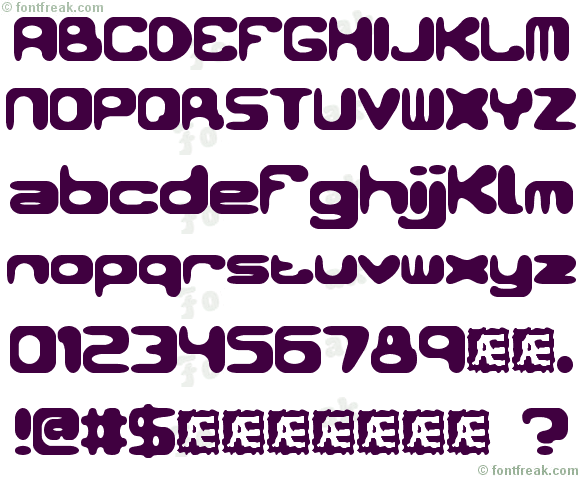
Conduit (BRK)
The Conduit font by Ænigma Fonts is a unique display typeface that blends modern aesthetics with playful charm. This freeware font features rounded letterforms, creating a friendly and approachable appearance. The stroke weight is consistent, offering a smooth visual flow, while the spacing between characters is generous, ensuring clarity even at smaller sizes. The design incorporates subtle decorative elements, such as the rounded terminals, adding a touch of whimsy that sets it apart from traditional fonts.
Conduit is highly versatile and can be effectively used in a variety of applications. It shines in branding for small businesses, particularly those in the creative industry, where a modern yet inviting look is essential. The font is also ideal for designing eye-catching movie posters, where its distinct character can draw attention and convey a sense of fun. Additionally, Conduit works beautifully for restaurant menus, providing a casual yet sophisticated feel that can enhance the dining experience. Graphic designers will find it suitable for social media graphics, allowing content creators to craft engaging posts that resonate with their audience.
What makes Conduit truly stand out is its ability to combine simplicity with a distinctive character. It offers a fresh take on display typography, making it an excellent choice for anyone looking to make a lasting impression in their visual communications.